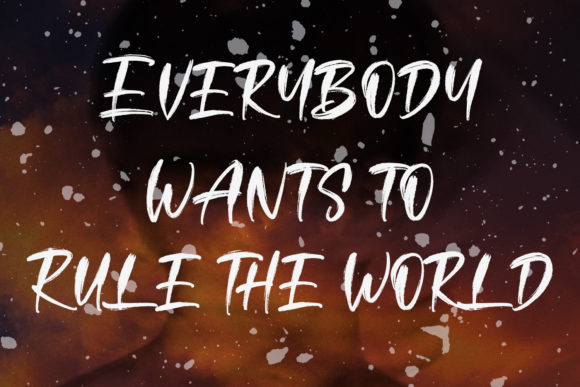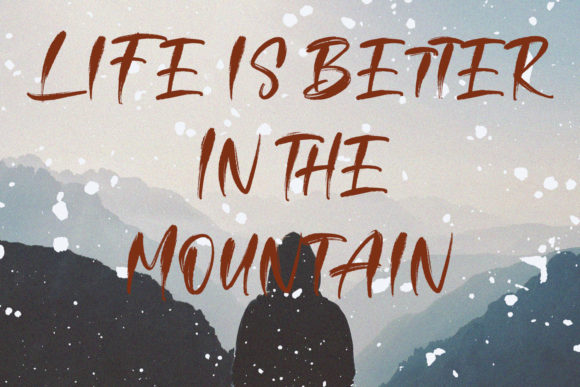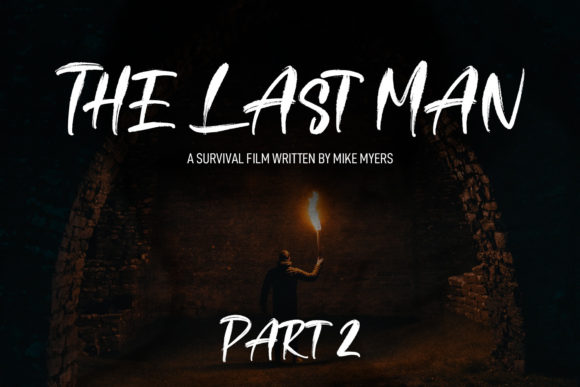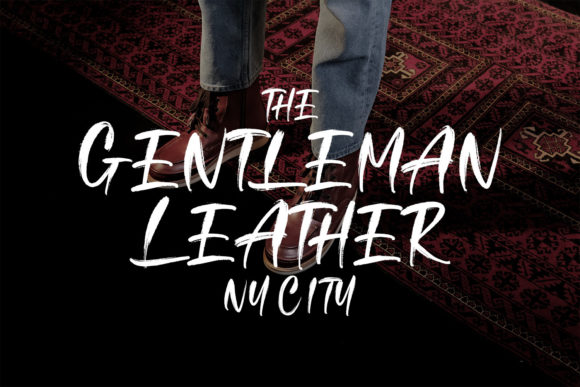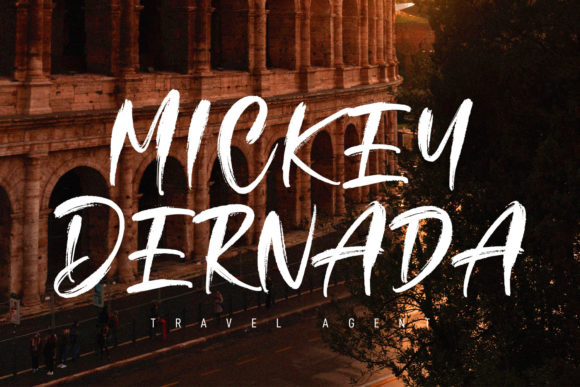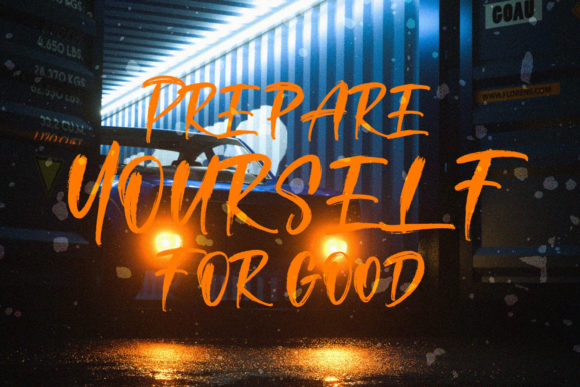
Discover the Perfect Blend of Edginess and Sophistication
Have you ever stared at a blank canvas, waiting for the perfect font to strike inspiration? You know, that ‘aha’ moment when everything falls into place, and your design takes off? It’s those moments that make all the difference between a good design and a great one.
One such game-changer is the Human Crush Font – a cool, brushed, and adaptable display font that’s perfect for designs that need a touch of edginess and sophistication. From t-shirts and sportswear to logos and advertisements, this font is sure to elevate your designs to the next level.
What makes Human Crush Font truly valuable for designers is its versatility and adaptability. Whether you’re creating a bold statement or a subtle suggestion, this font is sure to deliver. So, get ready to unleash your creativity and take your designs to new heights with the Human Crush Font!
Human Crush Font Key Features
- Font Family: Human Crush Font is a sans-serif font family with a modern and edgy feel.
- Character Set: The font family includes a wide range of characters, including uppercase and lowercase letters, numbers, and punctuation marks.
- Unique Characteristics: Human Crush Font features a distinctive, hand-drawn feel with bold lines and geometric shapes, giving it a unique and eye-catching appearance.
Human Crush Font Review
At first glance, the Human Crush Font seems like an intriguing choice for any design project. I was immediately drawn in by its ✨ unique, hand-drawn aesthetic, which could bring a sense of character to a piece. The font’s varied line weights and irregular shapes add to its charm, making it feel more like a custom illustration than a traditional font.
- ✨ The Human Crush Font excels at creating a sense of whimsy and playfulness, perfect for projects that need a bit of personality.
- ✨ Its versatility in terms of font sizes and styles makes it a great choice for a wide range of applications, from body text to headings.
However, there are some limitations to consider. The Human Crush Font can be a bit ✨ overwhelming when used extensively, and its irregular shapes may not be suitable for all types of content. Additionally, the font’s lack of consistency in terms of line weights and spacing can make it challenging to work with at times.
- ⚠️ The Human Crush Font may not be the best choice for projects that require a more formal or professional tone.
- ⚠️ Its irregular shapes and varying line weights can make it difficult to achieve consistency in terms of spacing and alignment.
Overall, I would say that the Human Crush Font is a solid choice for projects that need a bit of personality and whimsy. However, it may not be the best fit for all types of content or design projects.
To get the most out of the Human Crush Font, use it sparingly to create emphasis and add visual interest to your designs. Pair it with bold or italic fonts to create a striking contrast.
The Human Crush Font is perfect for creating eye-catching headlines, titles, and captions. It’s also great for adding a touch of sophistication to your designs, making it ideal for fashion, beauty, and luxury brands.
Alternative Fonts to Human Crush Font
Fontin is a sans-serif font with a similar modern feel to Human Crush Font. It is best used for digital products, apps, and websites that require a clean and minimalist design. Fontin has a more rounded and friendly appearance compared to Human Crush Font, which makes it suitable for user interfaces and branding.
Montserrat is a sans-serif font that shares a similar geometric feel to Human Crush Font. It is ideal for use in urban and modern designs, such as city guides, maps, and fashion brands. Montserrat is more condensed than Human Crush Font, making it suitable for use in titles and headings.
Inter is a sans-serif font with a modern and neutral appearance. It is suitable for use in digital products, websites, and apps that require a clean and versatile design. Inter is more adaptable than Human Crush Font, making it suitable for use in a wide range of contexts, from body text to headings.